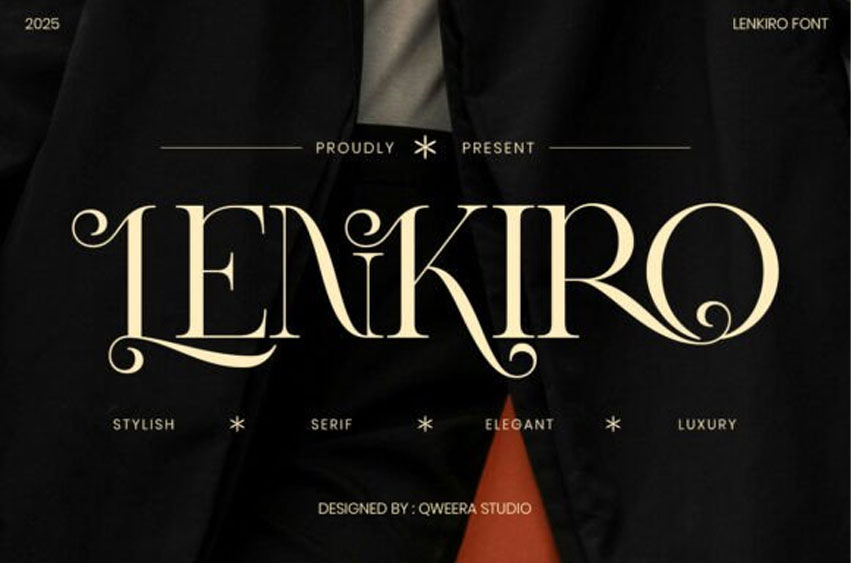
Lenkiro Font
Lenkiro Font is an elegant luxury serif typeface featuring expressive swashes and refined details. Perfect for logos, wedding invitations, magazines, and high-end packaging.
Its stylish curves and smooth ligatures create a sophisticated and modern look while maintaining a timeless aesthetic.
Designed for creatives who want premium and elegant typography.